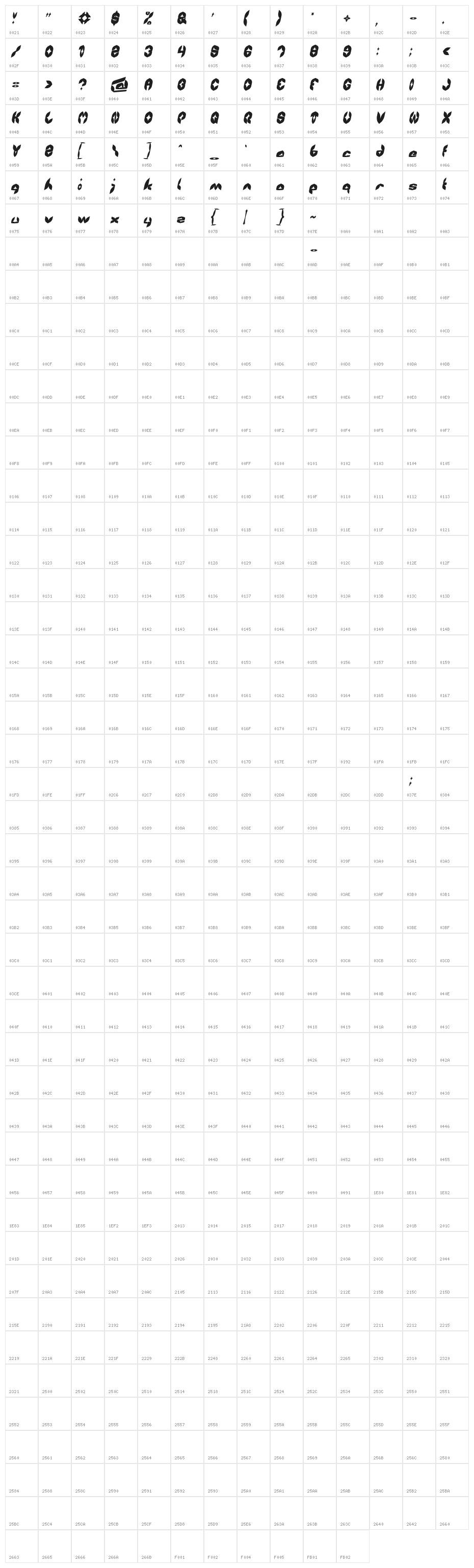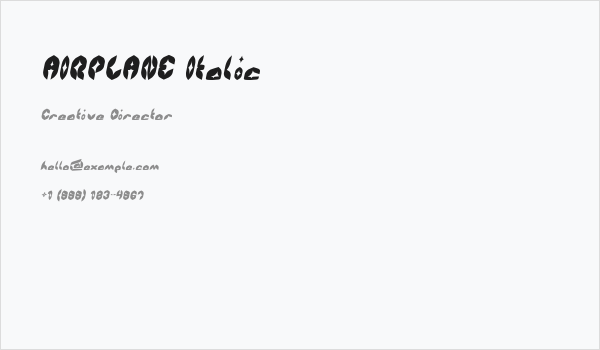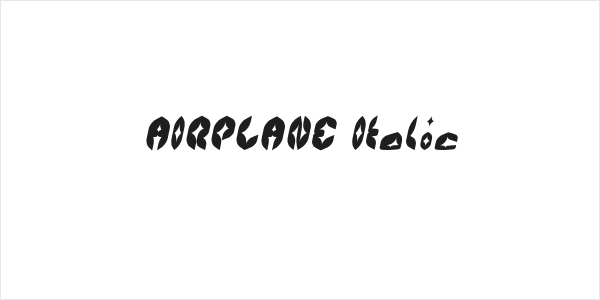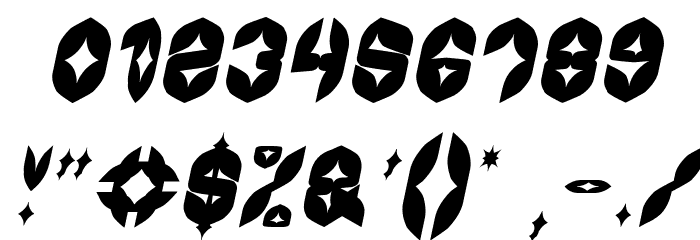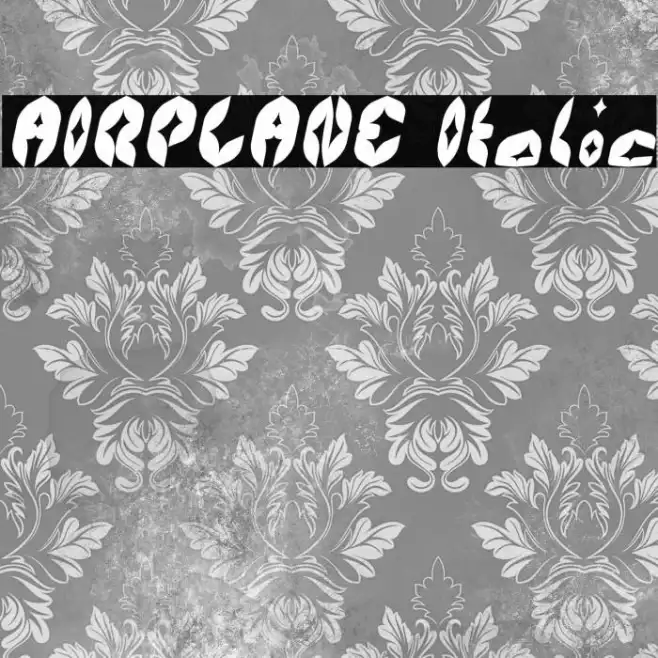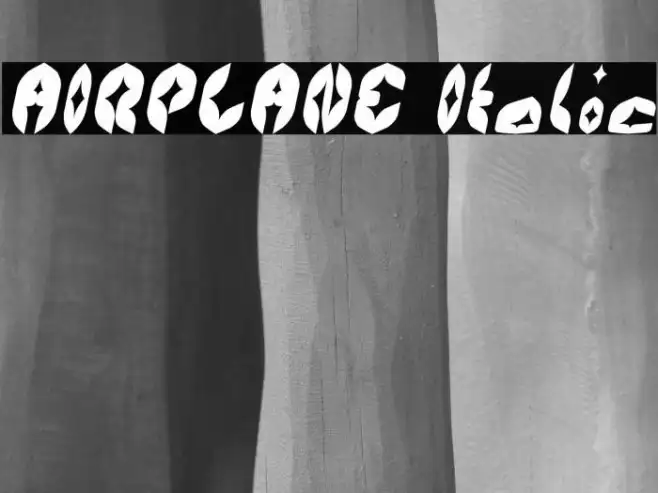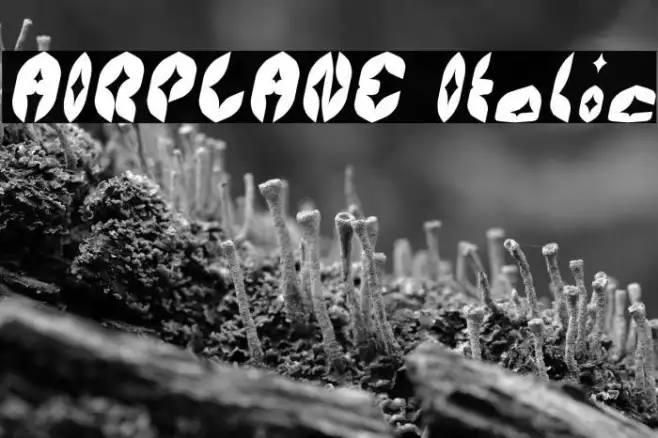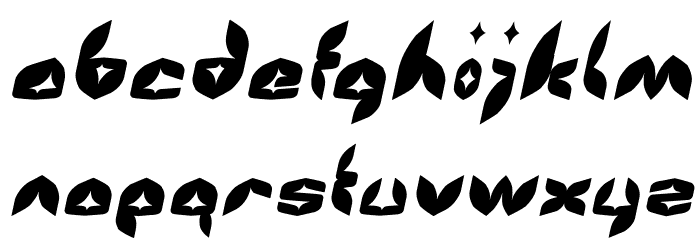
AIRPLANE Italic Font
AIRPLANE Italic Description
This font features a bold and dynamic design with a distinct italic slant, giving it a sense of motion and energy. The characters are crafted with sharp, angular edges and a unique geometric style that makes them stand out. The uppercase and lowercase letters maintain a consistent style, with the uppercase being slightly more pronounced. Numbers and special characters are designed to match the overall aesthetic, ensuring uniformity across all elements. The font's boldness and angularity make it ideal for projects that require a strong visual impact.
| Overall Style | Modern, Futuristic |
| Proposed Projects | Ideal for sports branding, dynamic posters, video game titles, and futuristic designs. |